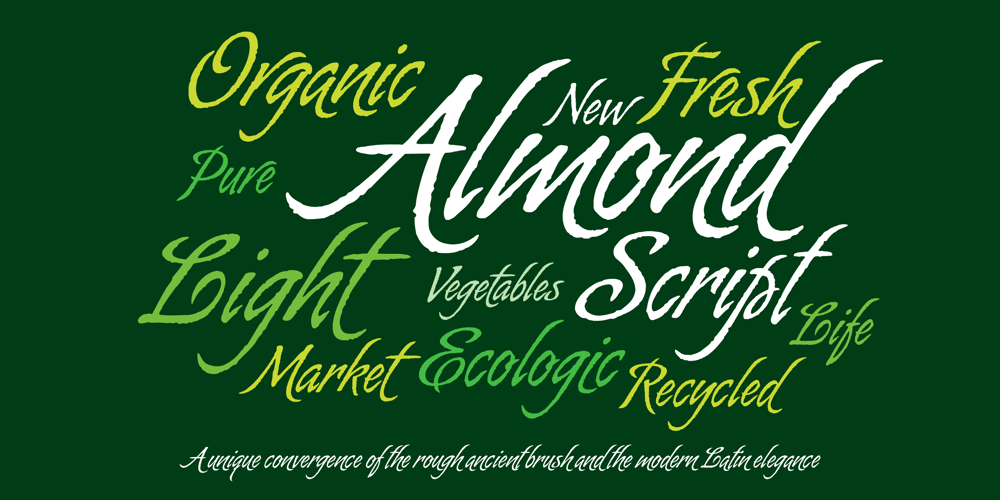
Almond Script Font Family was designed by Alejandro Paul, Angel Koziupa and published by Sudtipos. Almond Script contains 1 styles and family package options. With ascenders and descenders gone tall and wind-bent just the right way and capitals of enough weathered artistry to touch off waves of mystique and experience, Almond Script is calligraphy gone rusty and textured like only Angel Koziupa and Alejandro Paul can make it. Scarred and wavy like an exhausted warrior, slim and delicate like a tango dancer, this typeface is a unique convergence of the rough ancient brush and the modern Latin elegance. Nine out of ten packaging design experts agree: Almond Script has nothing to do with whitening your teeth, but it certainly can brand your product like no other script can. Designed by Koziupa and digitized by Ale Paul this font cover all your packaging needs!